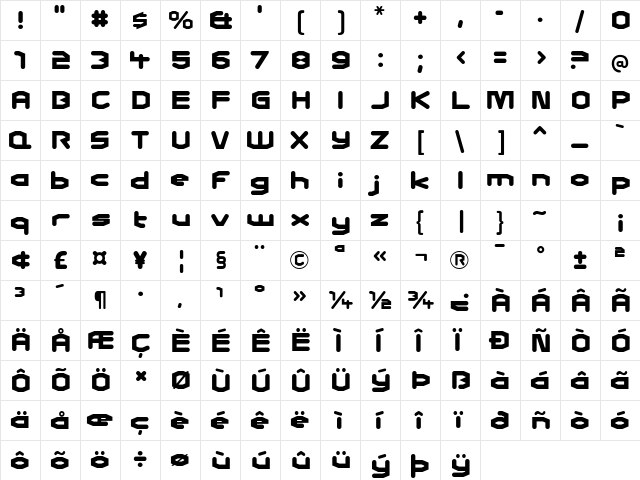
Charles in Charge Regular
Design Context for Charles in Charge Typeface
Charles in Charge is a composed and adaptable typeface that performs quietly and consistently across a wide range of design contexts.